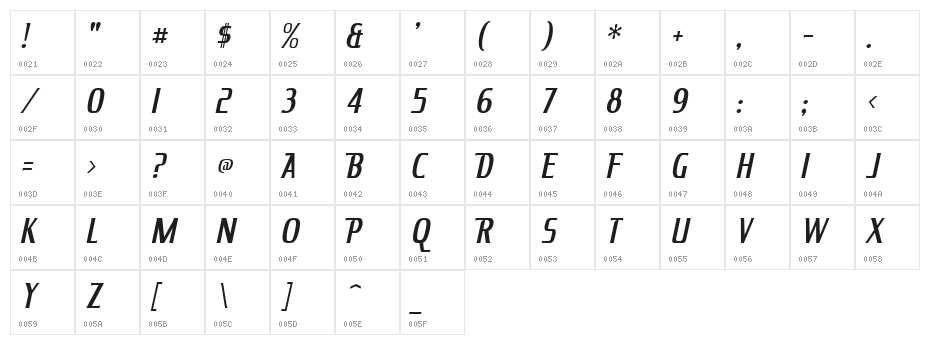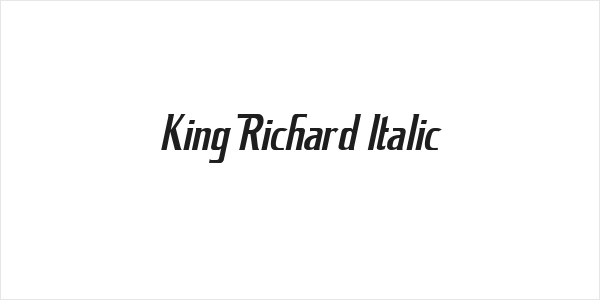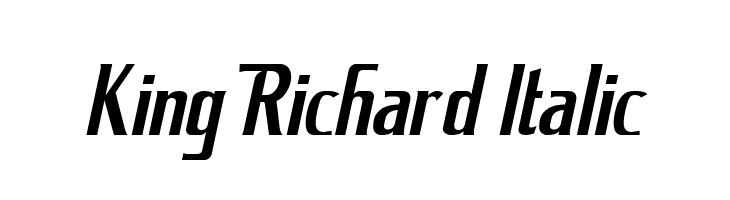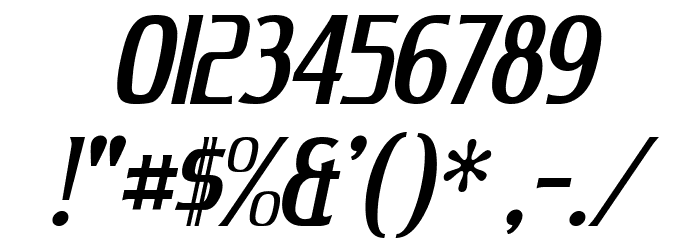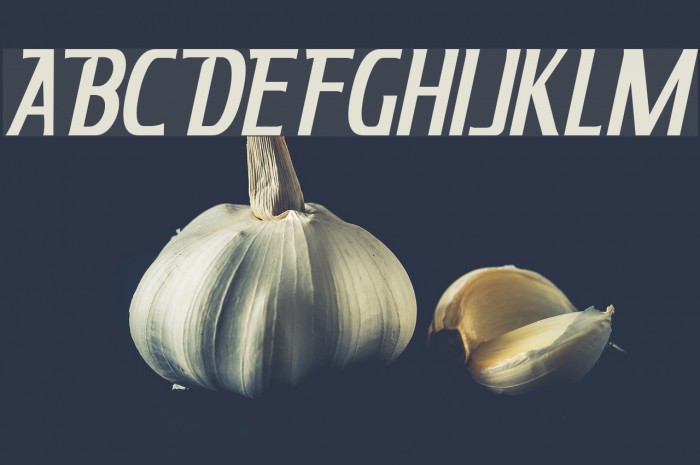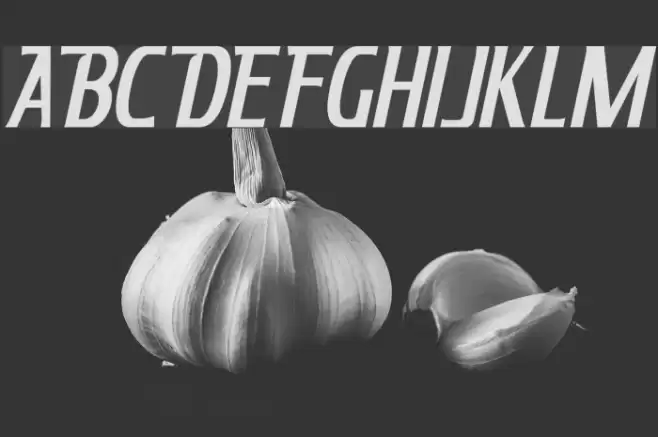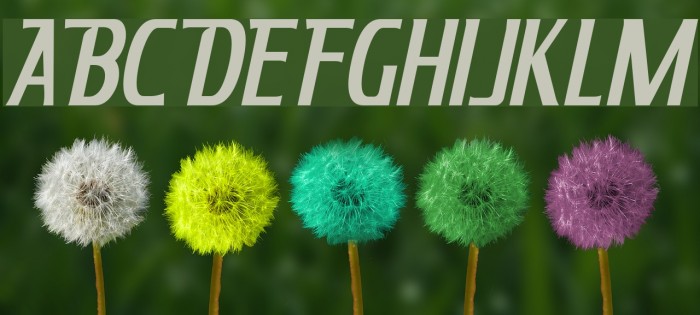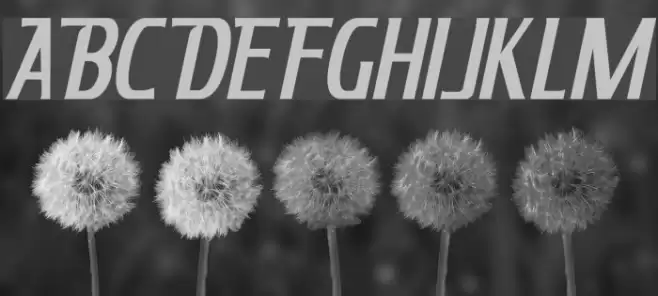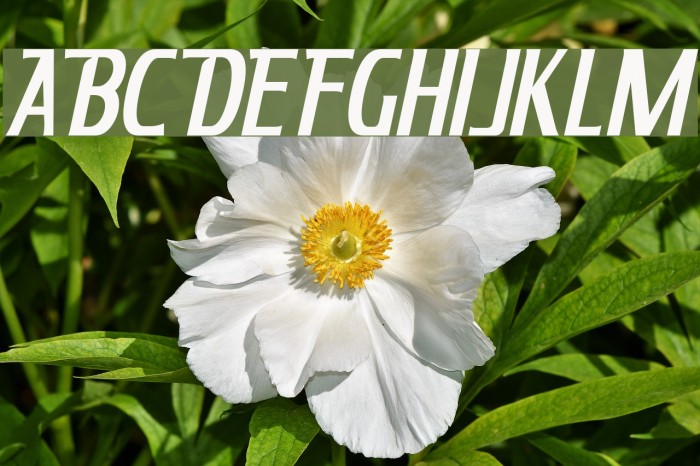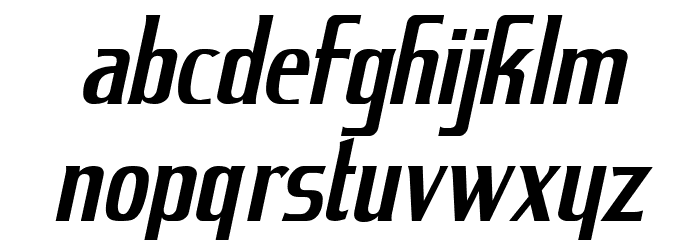
King Richard Italic Font
King Richard Italic Description
This font features a dynamic and elegant italic style, characterized by its sharp, angular serifs and a forward-leaning posture. The uppercase letters are tall and commanding, while the lowercase letters maintain a consistent flow with a slight slant that enhances readability. The numerals are distinct and align well with the overall design, providing a cohesive look. Special characters are crafted with precision, maintaining the font's sophisticated aesthetic. The font's design suggests a sense of movement and energy, making it suitable for projects that require a touch of elegance and modernity.